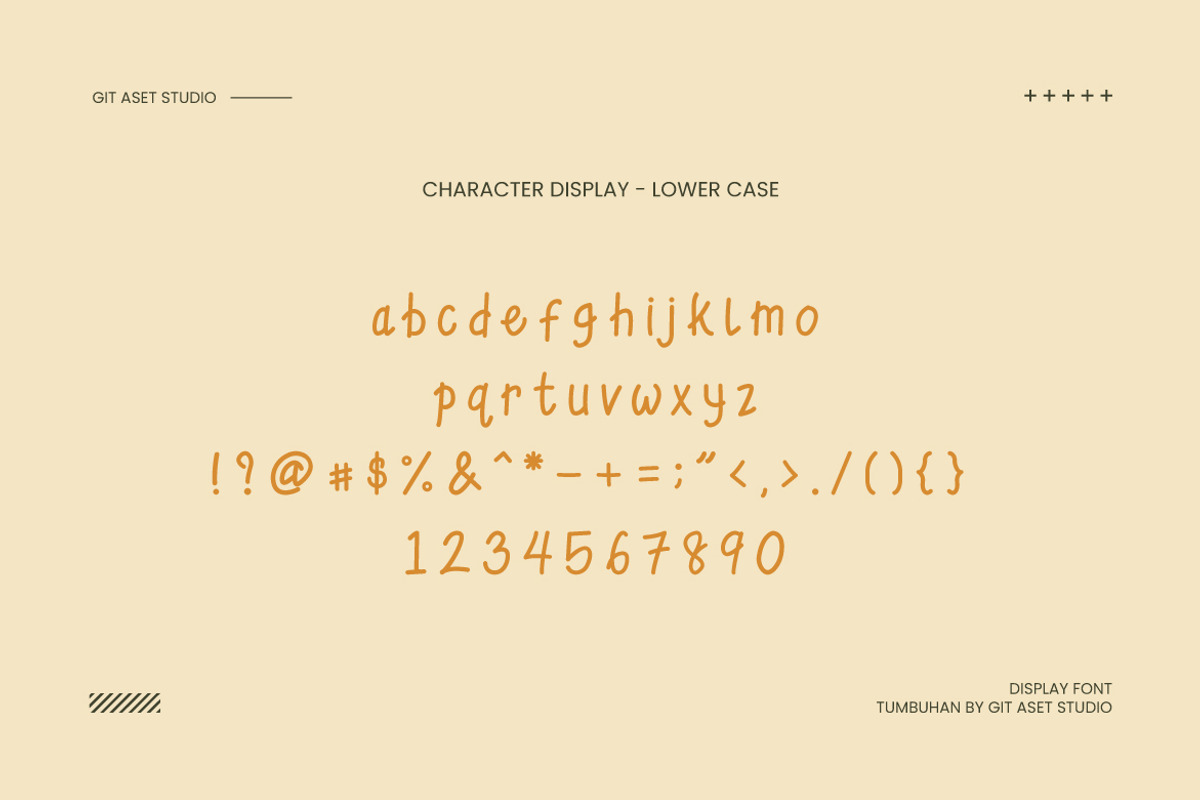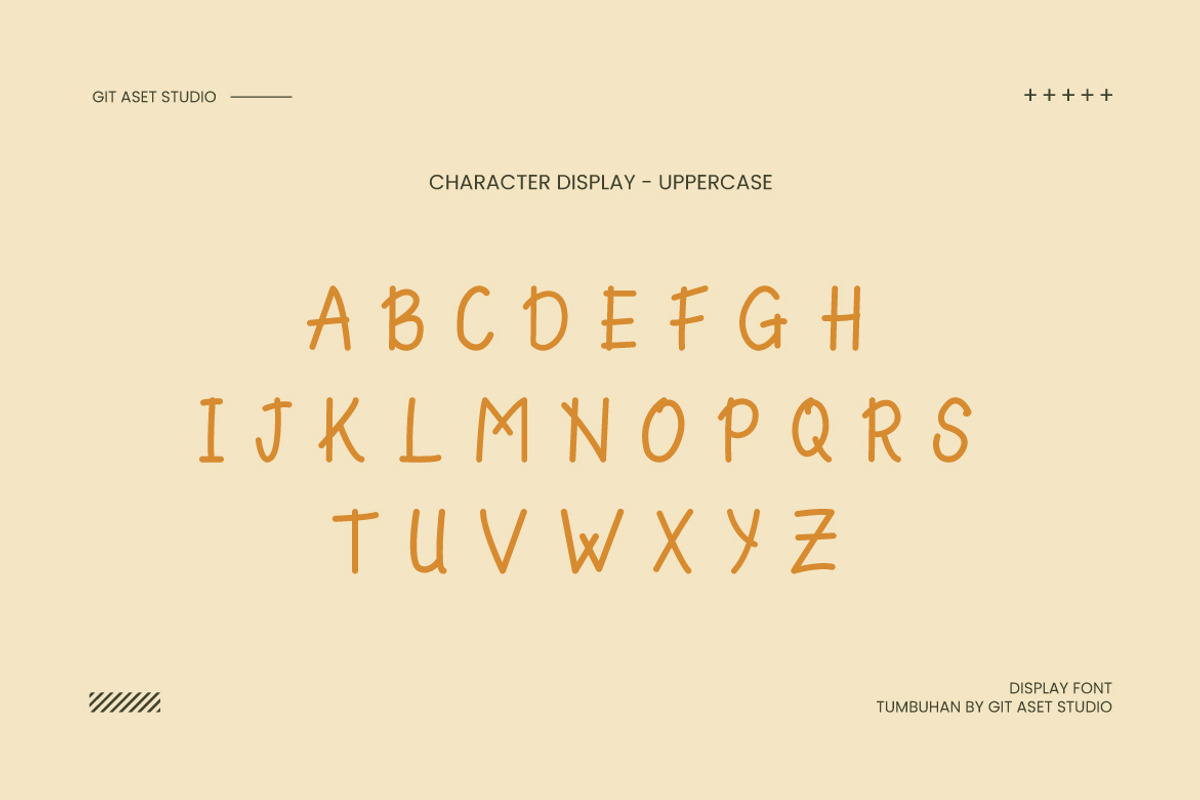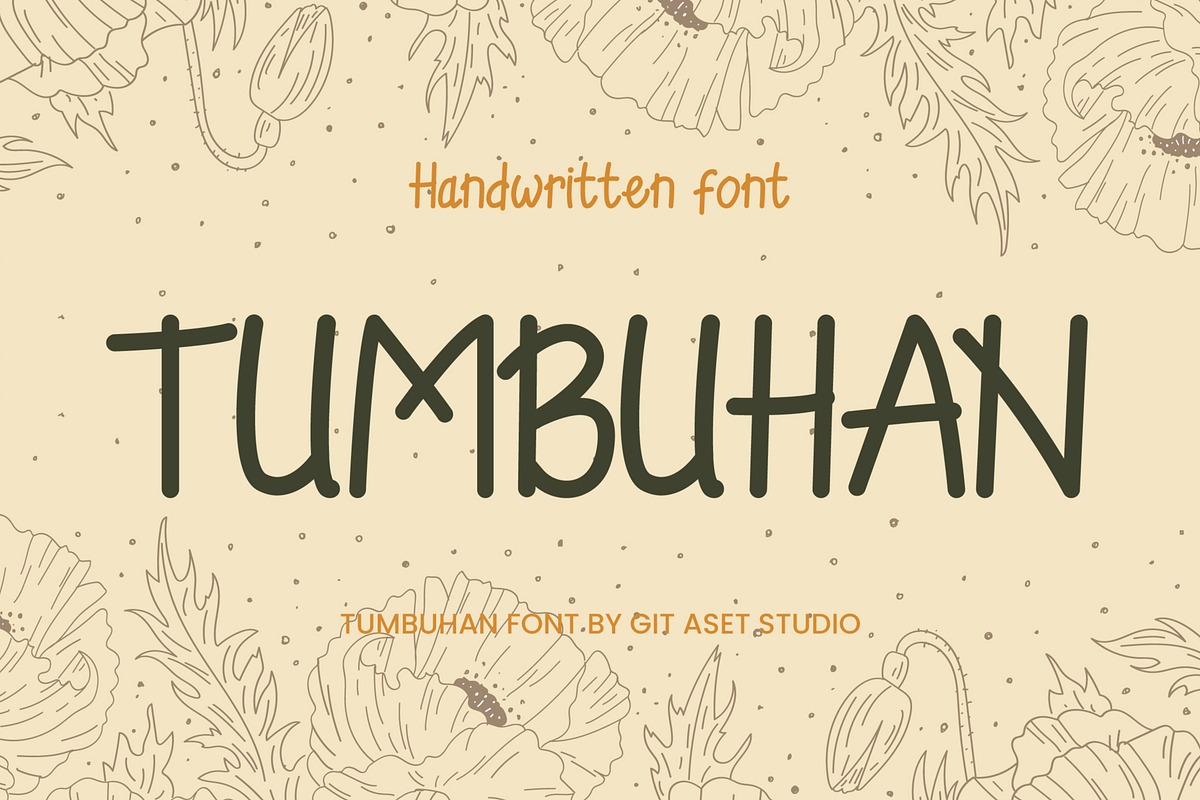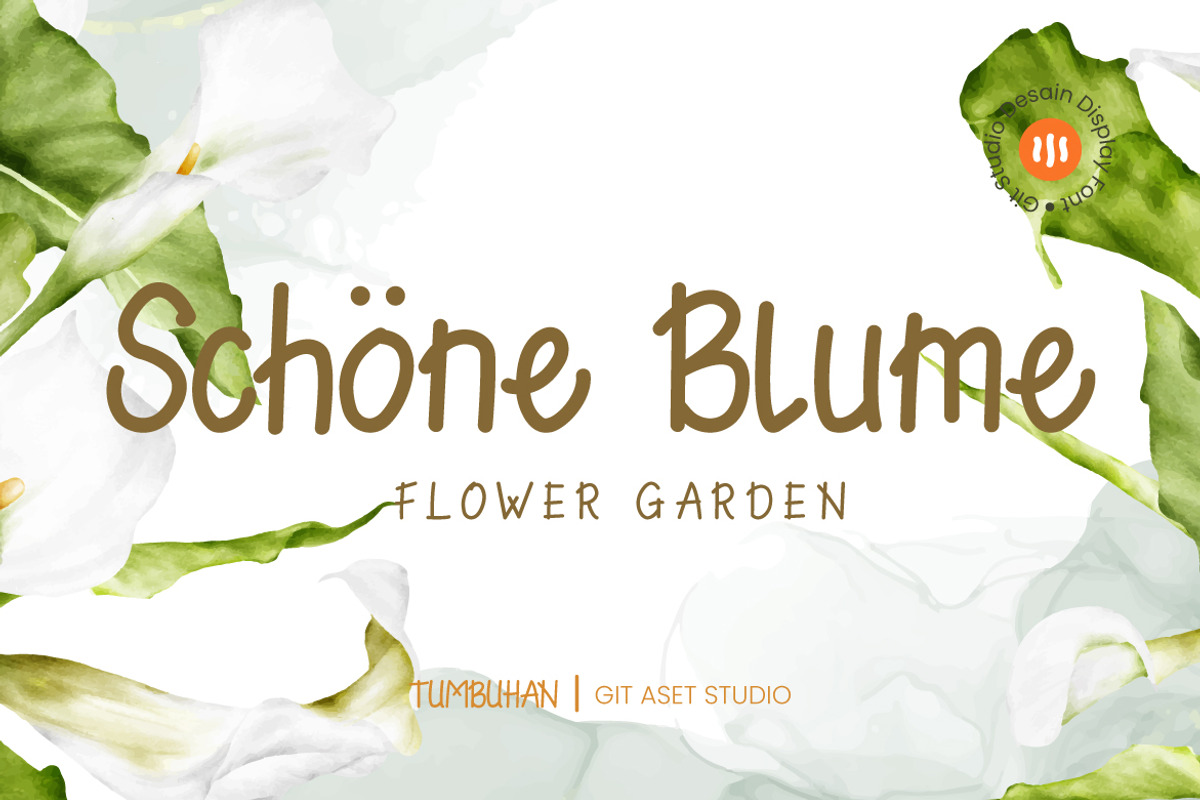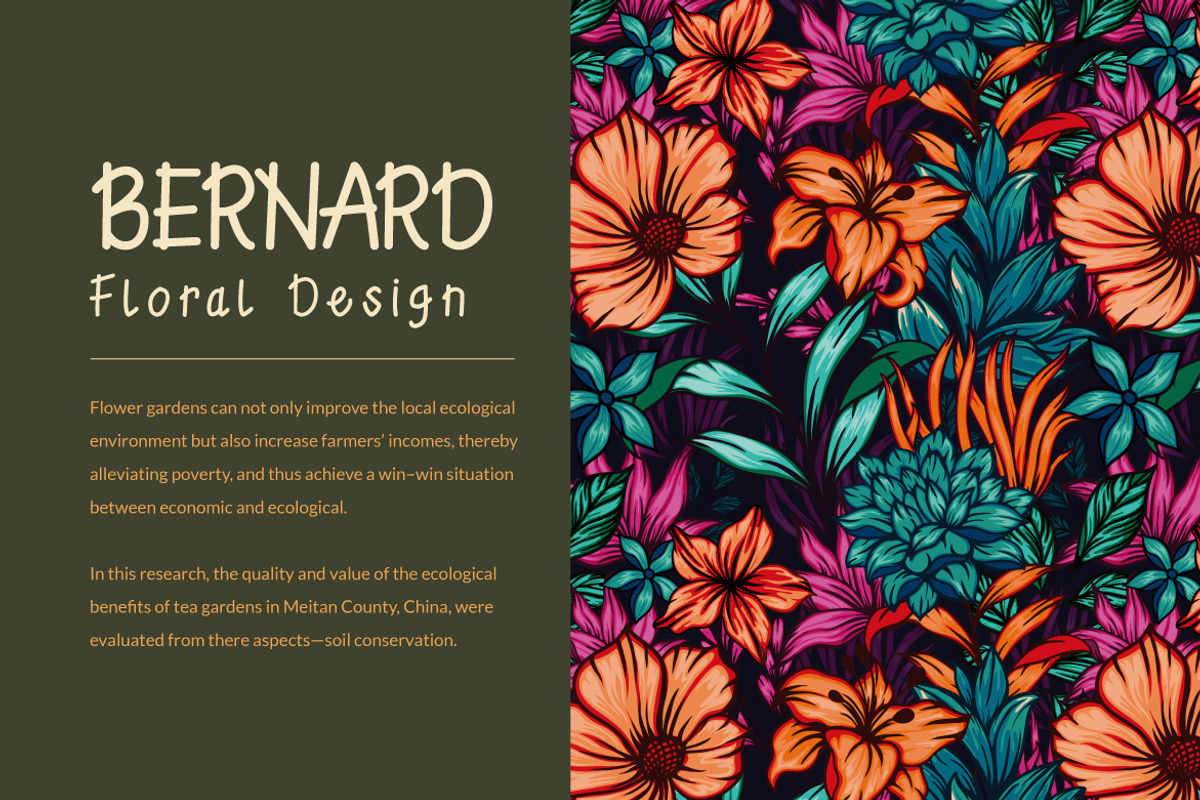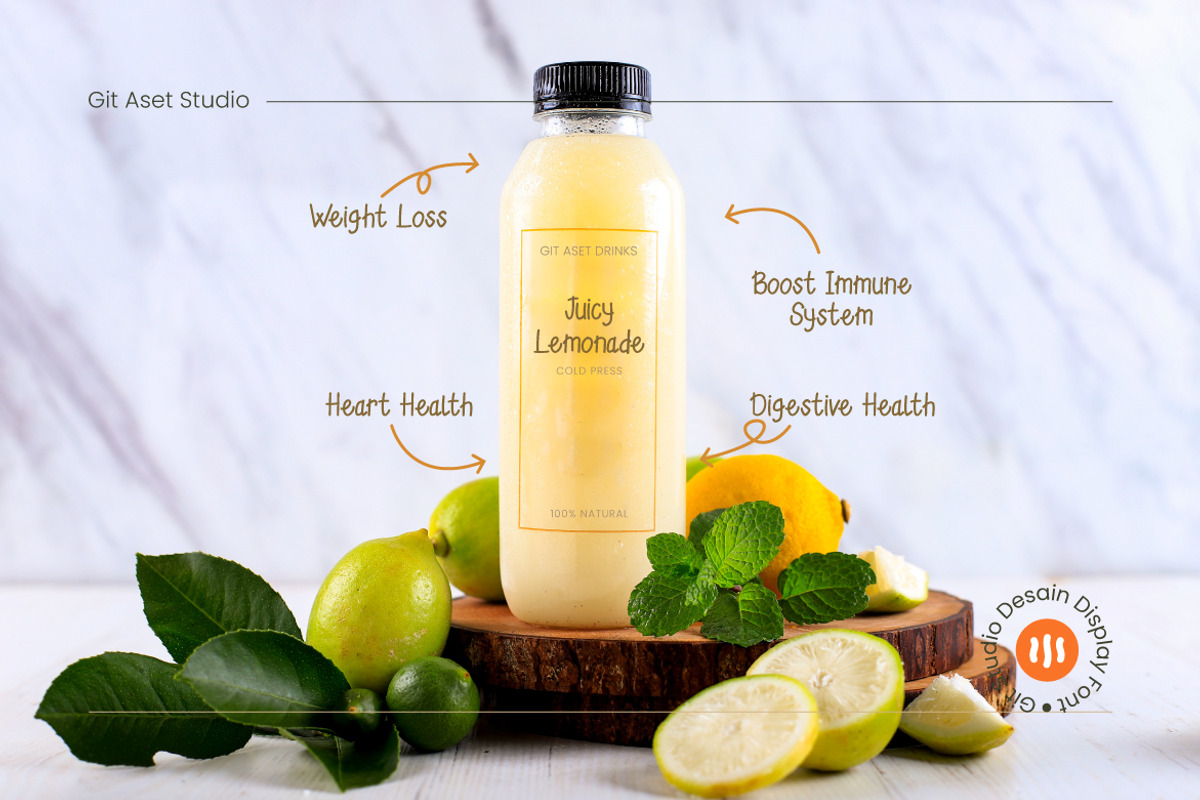
Tumbuhan - Cute Handwritten Font
This Cute Handwritten Font asset is perfect for adding a whimsical touch to any design project. With adorable handwritten characters, it adds a playful and charming element to your designs.
Whether you're creating greeting cards, invitations, children's book illustrations, or crafting personalized branding material, this Cute Handwritten Font asset adds a delightful flair to your designs.
This font is ideal for designers, illustrators, crafters, and anyone looking to incorporate a touch of cuteness into their design work. It caters to those seeking a lighthearted and informal style for their projects.